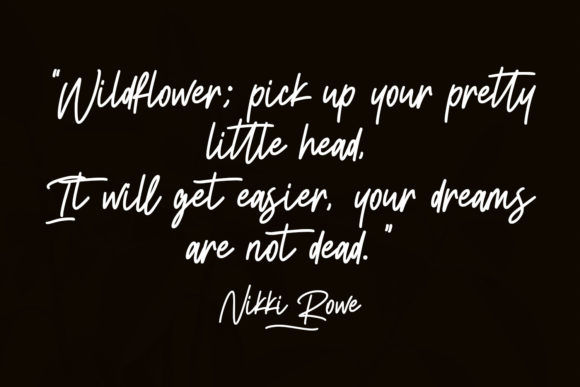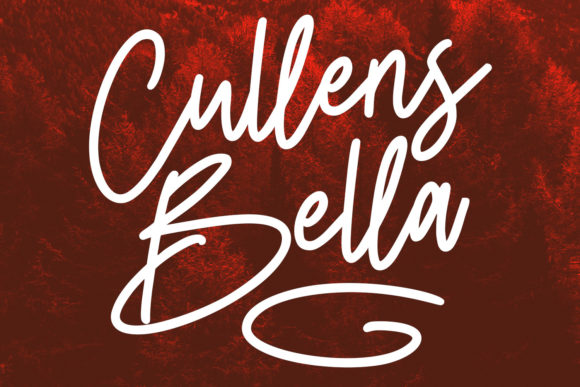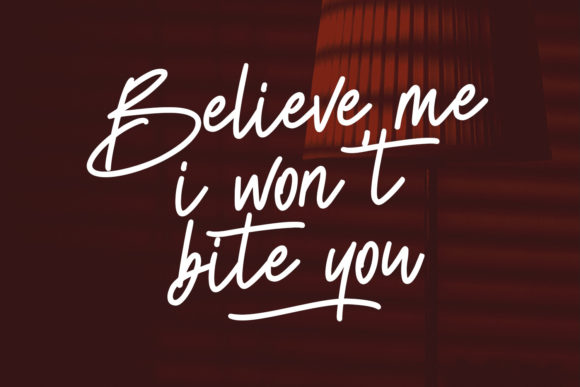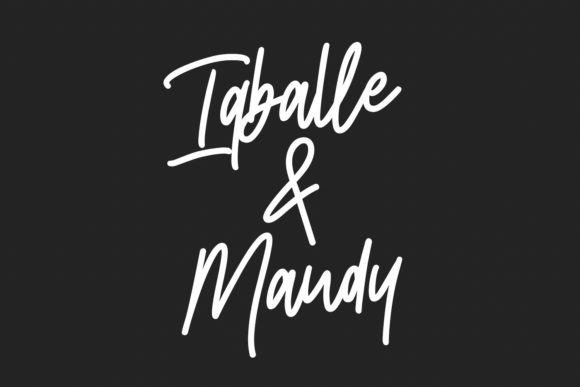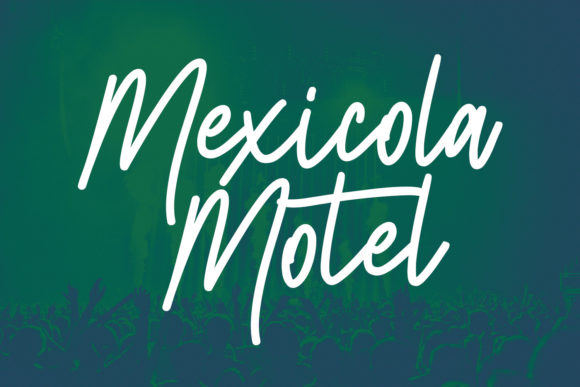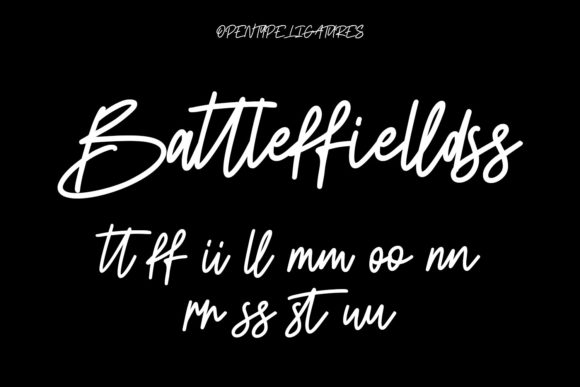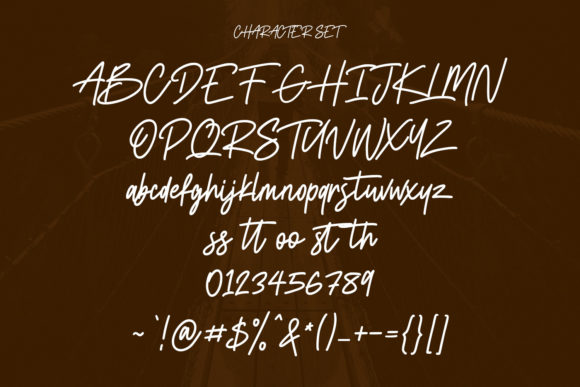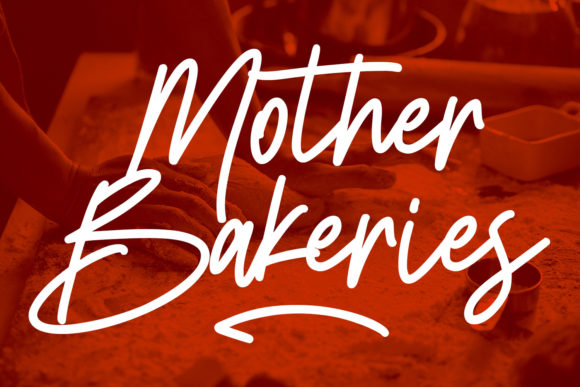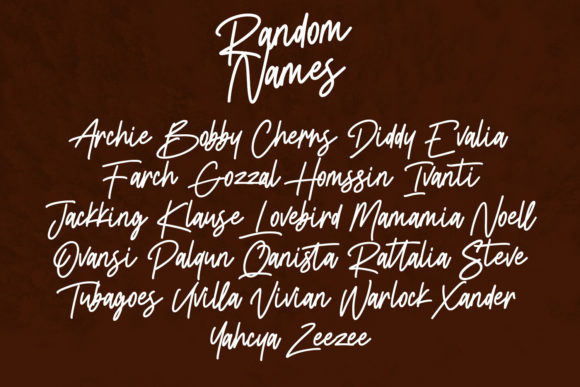
Restfaws Font
About Restfaws Font
Restflaws is a casual script font that will enhance the beauty of your creative work. It is very suitable for logo design, social media posts, movie and book titles, short text even a long text letter, and many more. Add this stunning font to any of your projects and capture the attention of everyone!